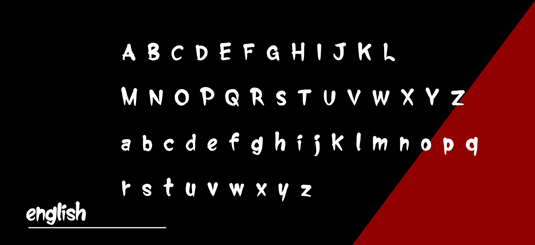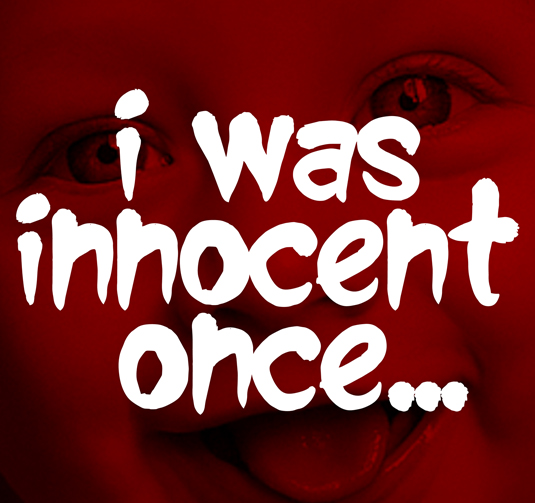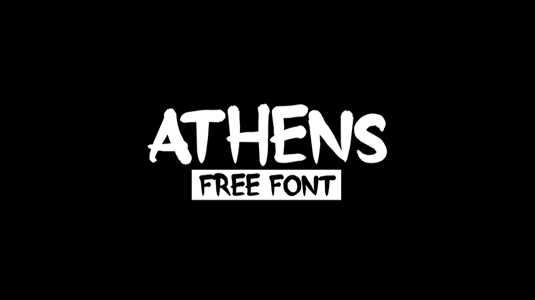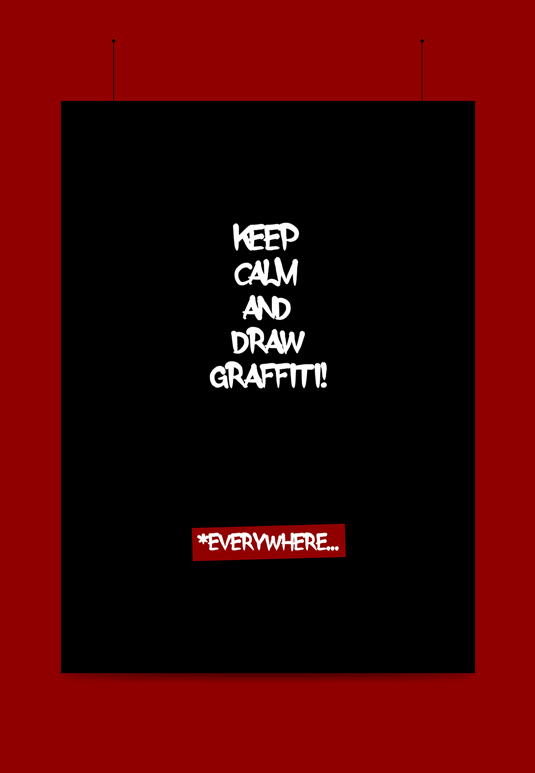
Font of the day: Athens
Athens by Iordanis Passas and Stergios Tsiamis
Today's typeface of choice is Athens, a free graffiti-inspired design by graphic designer Iordanis Passas and illustrator Stergios Tsiamis. Athens is free for personal use – you can download it over on Behance.